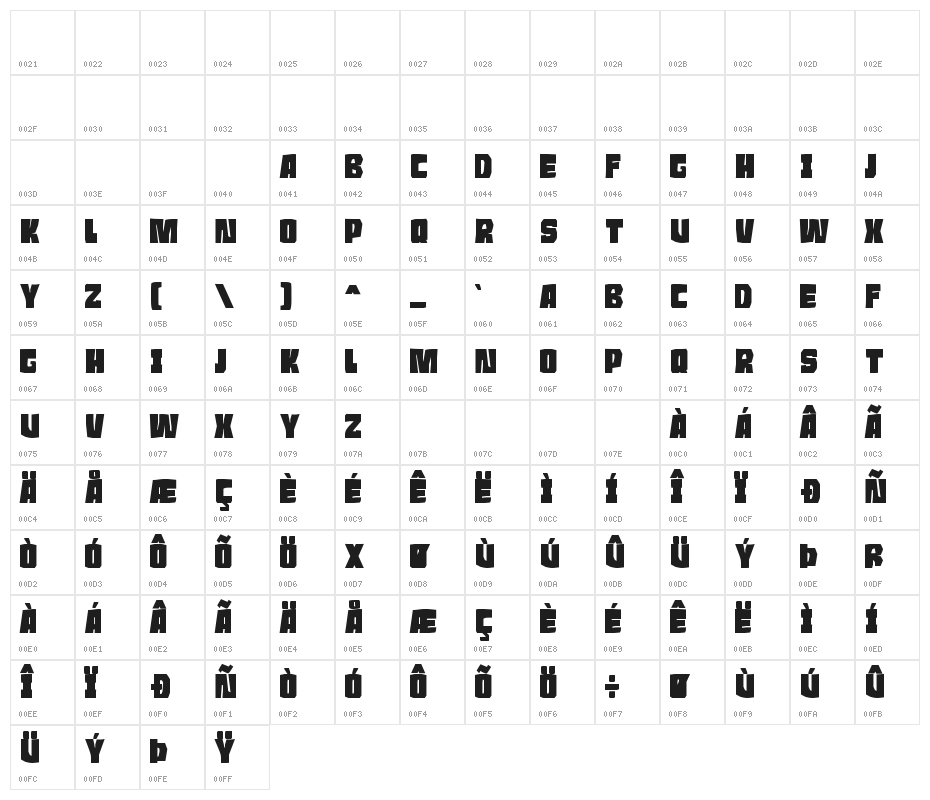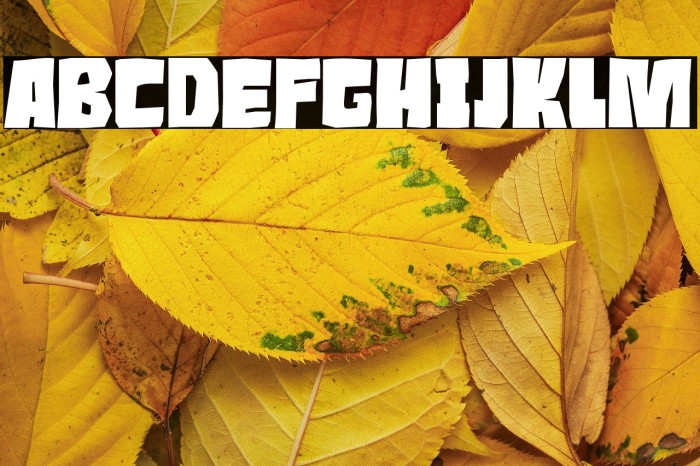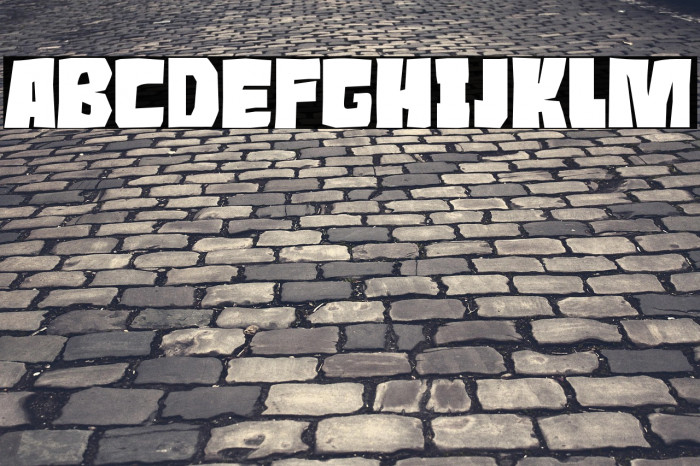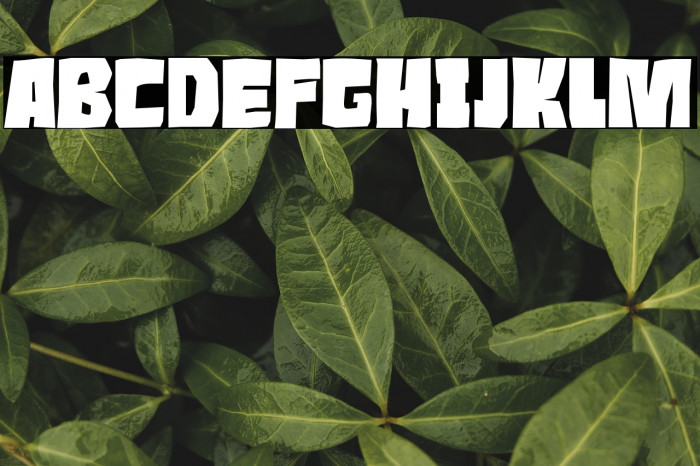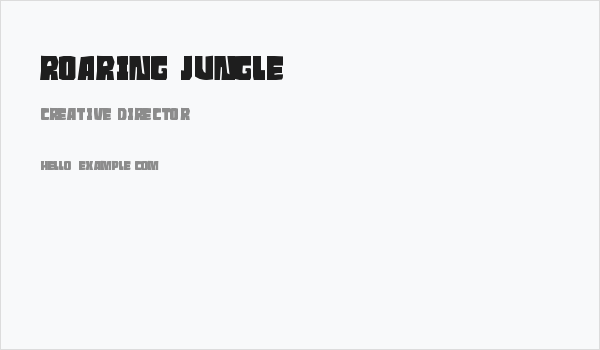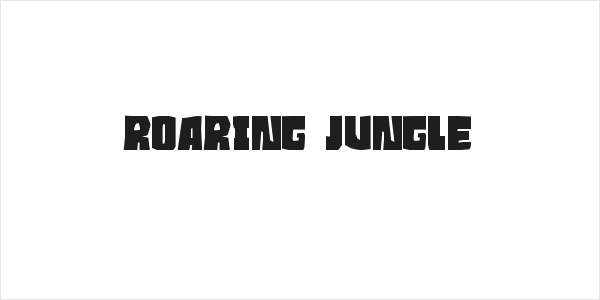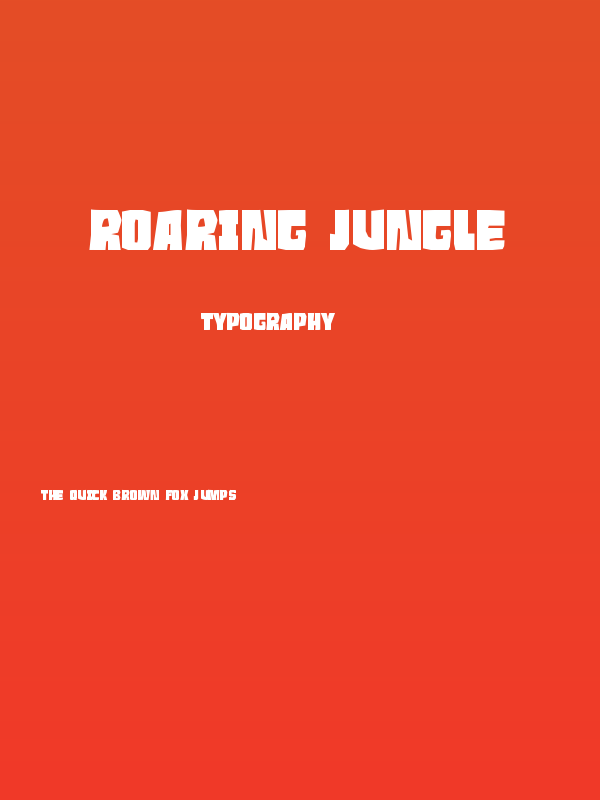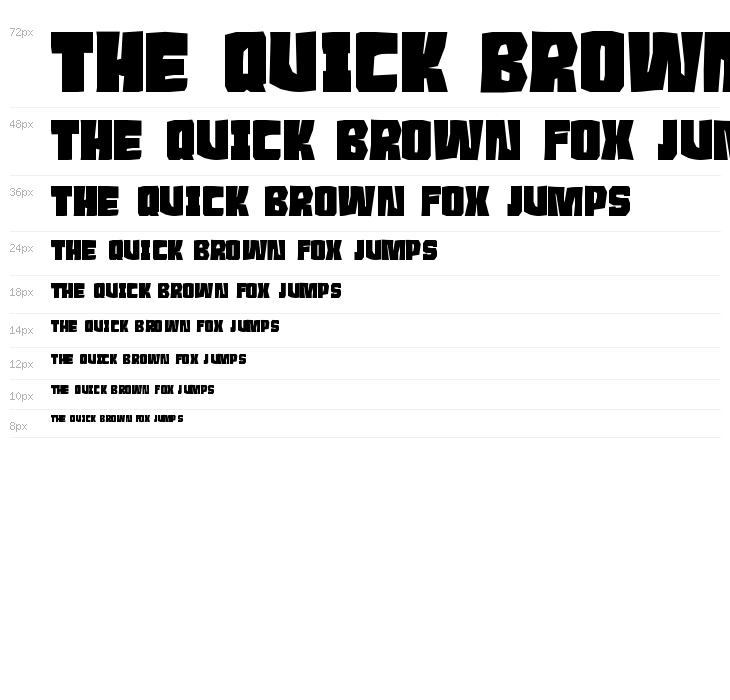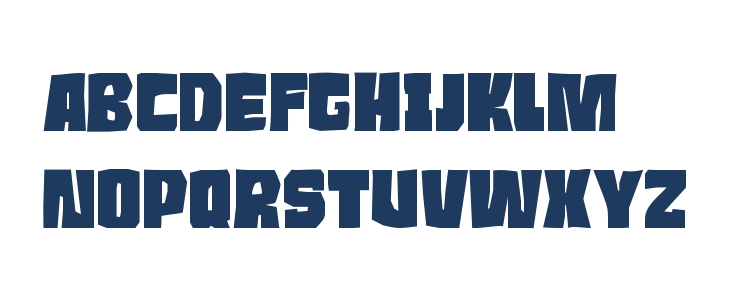
Roaring Jungle Font
Roaring Jungle Description
This font features bold, angular characters with a strong, impactful presence. The letters are designed with a blocky, geometric style that conveys a sense of strength and dynamism. Each character has a slightly irregular shape, adding a unique, handcrafted feel to the overall design. The font's thick strokes and sharp edges make it highly legible and suitable for attention-grabbing headlines. Its distinctive appearance is reminiscent of a rugged, adventurous theme, making it ideal for projects that require a bold and daring aesthetic.
| Proposed Projects | Ideal for posters, logos, branding, and any project requiring a bold, adventurous aesthetic. |